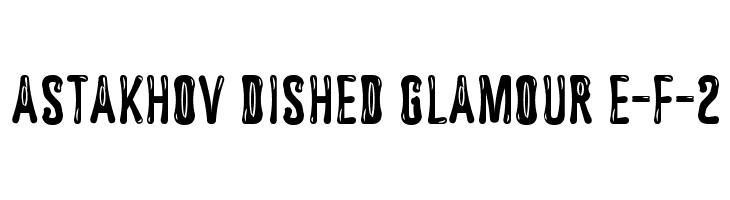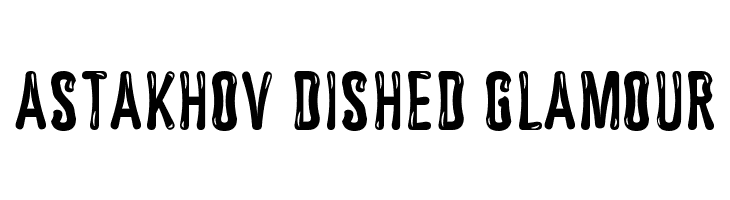
A bold, playful font with organic, blob-like shapes and a whimsical style.
A bold, playful font with a liquid-like, dynamic appearance.
A bold, playful font with organic, blob-like shapes and high contrast.
A bold, playful font with an organic, liquid-like design.